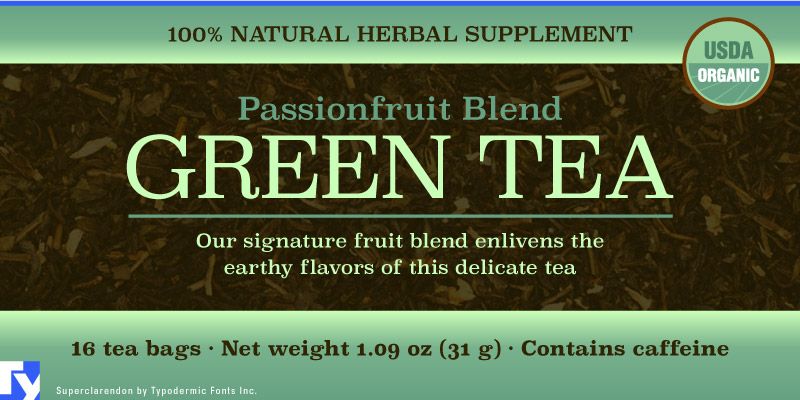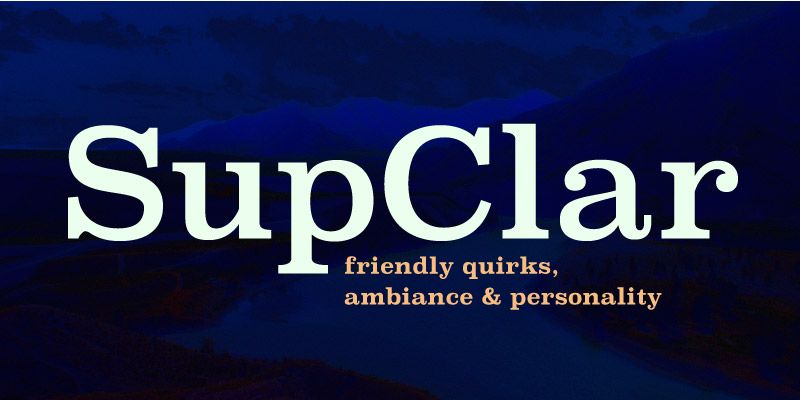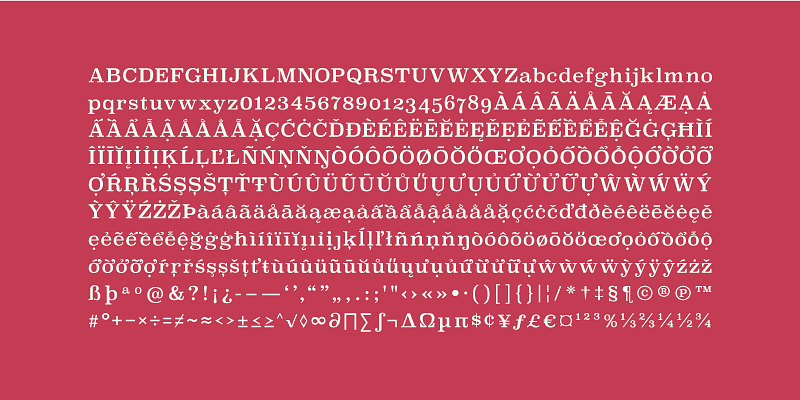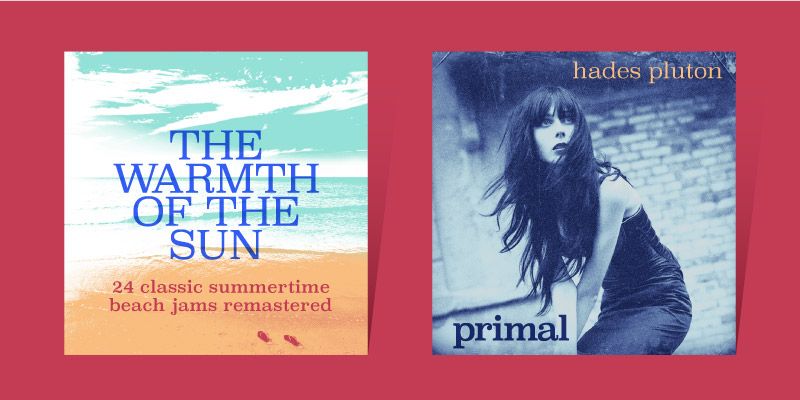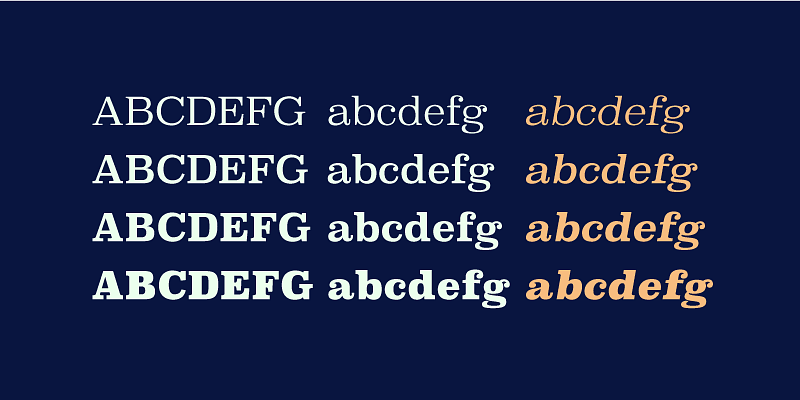
Superclarendon revisits the sturdy nineteenth-century Clarendon with broad forms and a clear, contemporary finish. Its bracketed slabs give a title an assured presence, while the lowercase can carry shorter editorial passages and product descriptions without abandoning the family voice. Light, Regular, Bold, and Black each have an italic, while old-style numerals lend dates and figures a more literary texture. This range makes it useful for publishing systems, food packaging, museum graphics, documentary titles, and brands that need both a substantial name and supporting copy. It can look historical when paired with period imagery, but its clean construction also sits comfortably with bright color and modern photography.